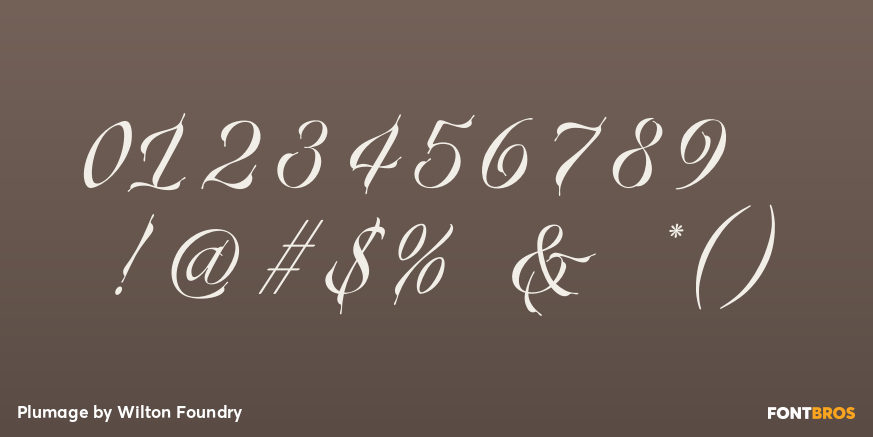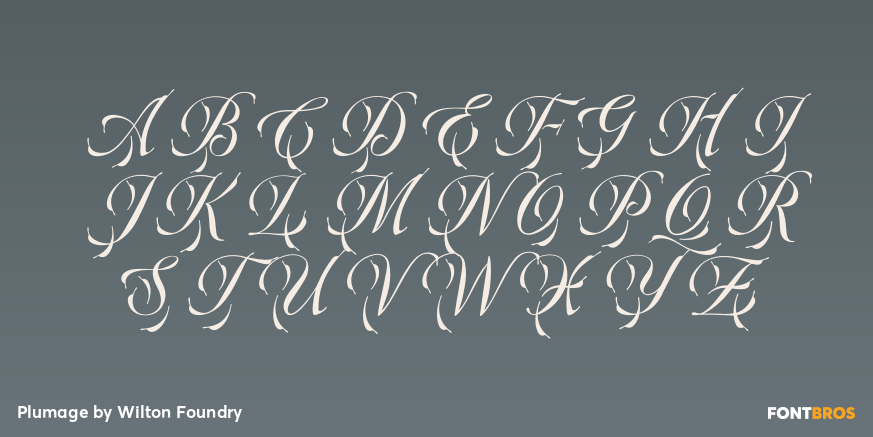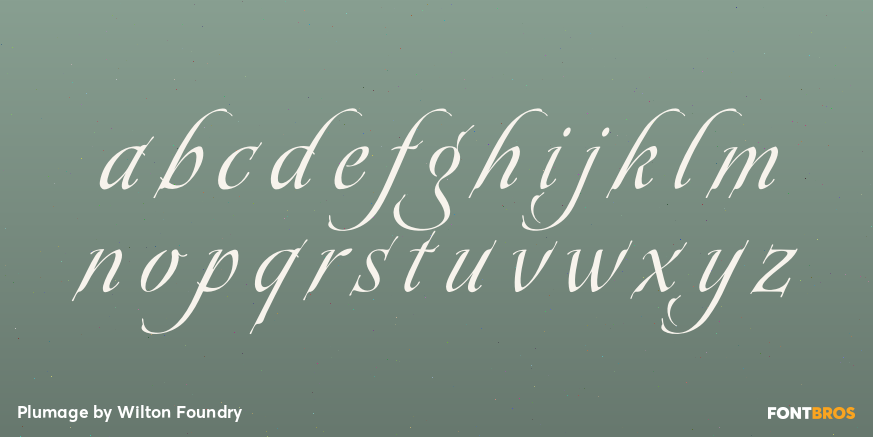
Plumage
Font Family by Wilton Foundry
Plumage is somewhat unusual in that it has elements of calligraphy as well as a script font in a semi-loose form that gives it a pleasing appearance for both large and small sizes, and interesting flare finish strokes add to its unique character. The name "Plumage"